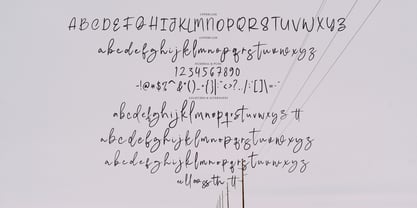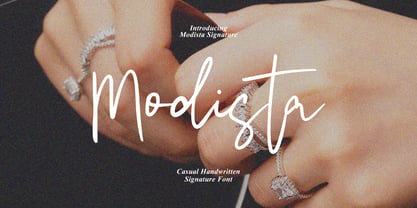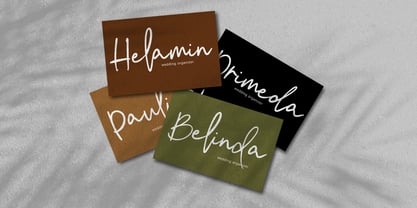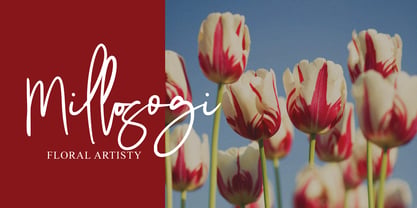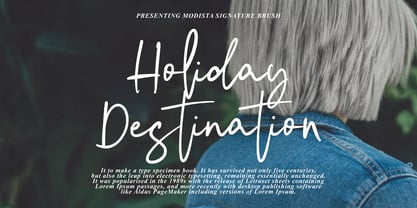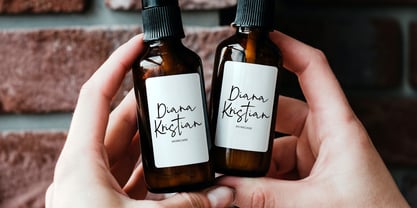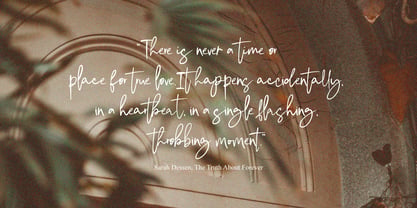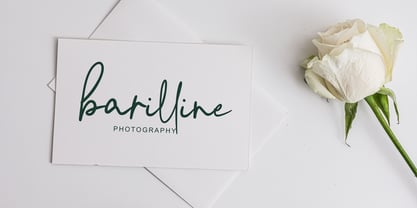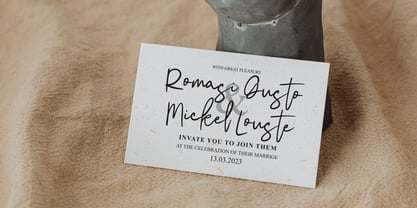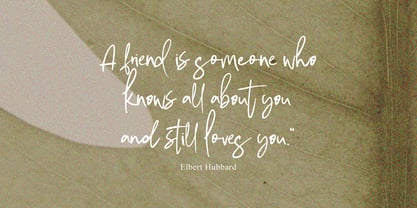
Modista Signature
Die Schriftfamilie Modista Signature wurde von Dzulka Elfira entworfen und von Tebaltipis Studio veröffentlicht. Modista Signature enthält 1 Stile. Mehr über diese Familie
ModistaSignature with a handmade Signature style, decorative characters and a dancing baseline! So beautiful on invitation like greeting cards, branding materials, business cards, quotes, posters, and more!!
Modista Signature come with 200+ glyphs. The alternative characters were divided into several Open Type features such as Swash, Stylistic Sets, Stylistic Alternates, and Ligature. The Open Type features can be accessed by using Open Type savvy programs such as Adobe Illustrator, Adobe InDesign, Adobe Photoshop Corel Draw X version, And Microsoft Word. And this Font has given PUA unicode (specially coded fonts). so that all the alternate characters can easily be accessed in full by a craftsman or designer.